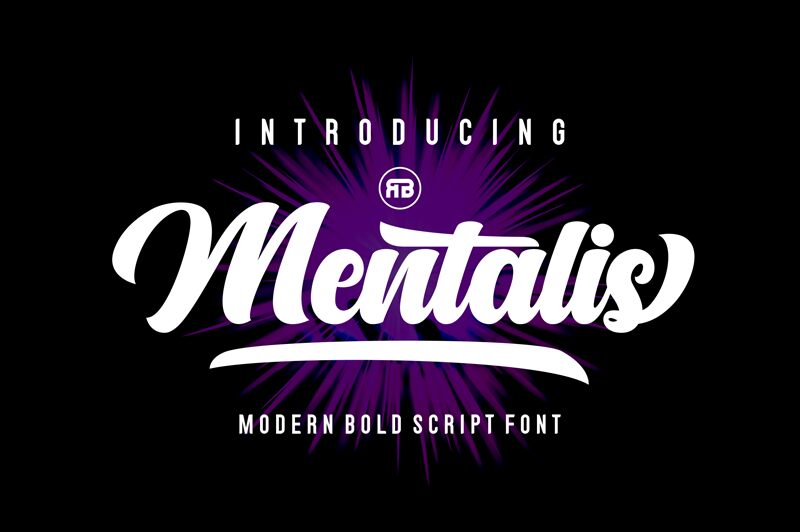
Mentalis font by RGB Studio is a free brush font with a sleek and expressive appearance. Its bold style offers enhancements in flow, curves, and legibility that many other options fail to bring out at this high level. The artist used both calligraphy and hand lettering to create a classic typeface with vintage flair.
Mentalis
Designed by MOH. MA'IN from RGB Studio in 2023.